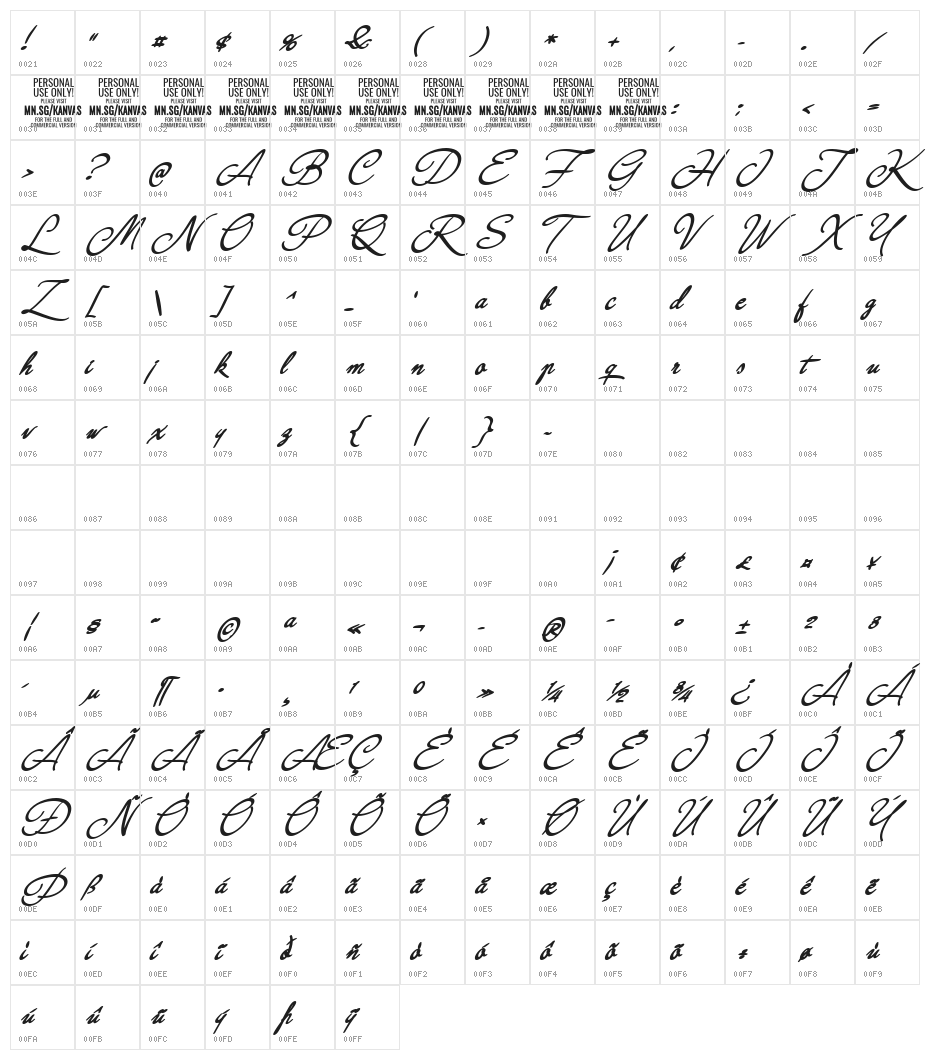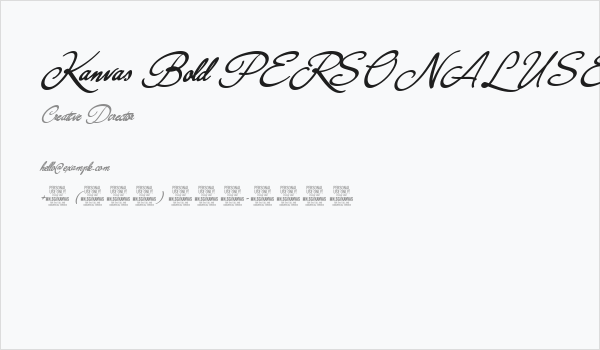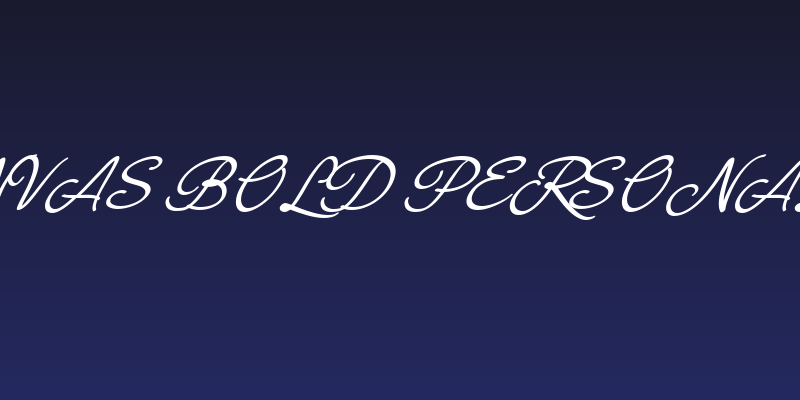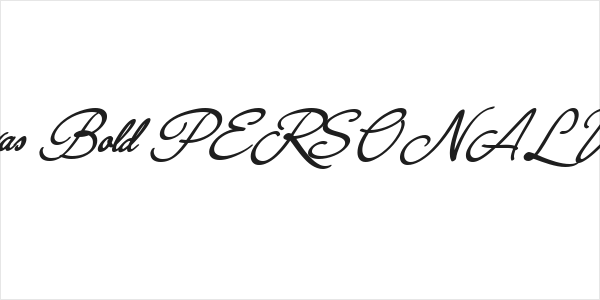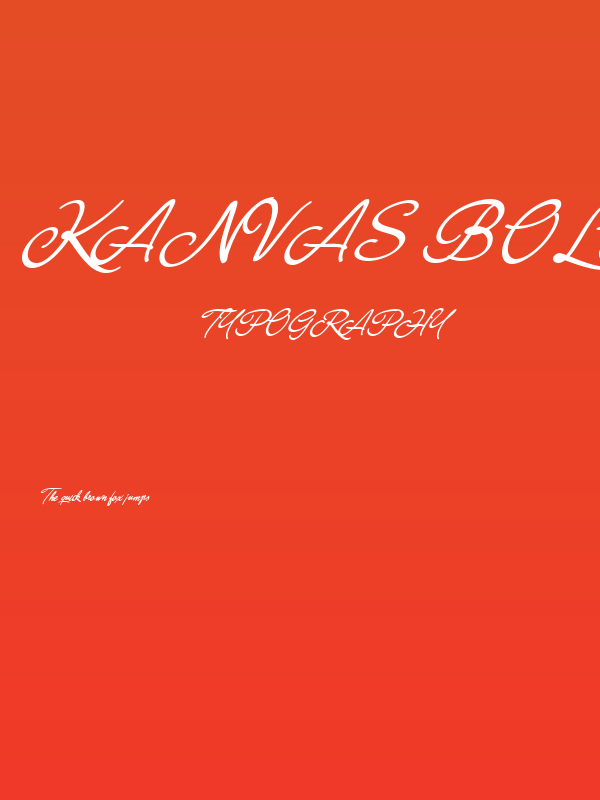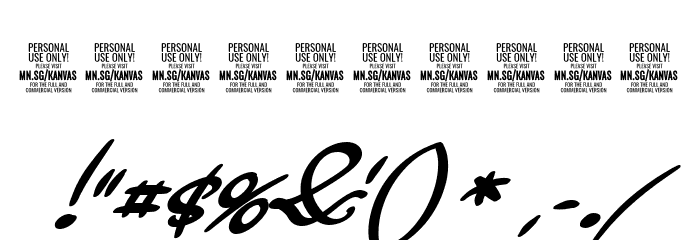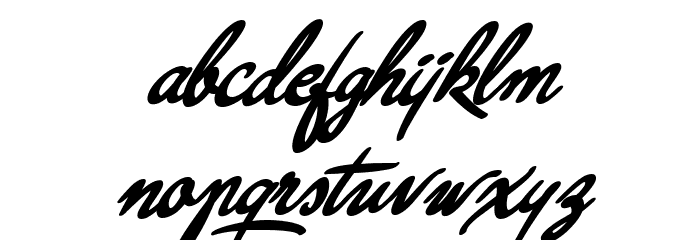
Kanvas Bold PERSONAL USE Font
Kanvas Bold PERSONAL USE Description
This font features a bold, expressive script style with a dynamic flow and elegant curves. The uppercase letters are particularly ornate, with sweeping lines and intricate loops that give a sense of movement and flair. The lowercase letters maintain a cohesive look, with a slightly more compact design that complements the uppercase characters. The numbers and special characters are crafted with the same attention to detail, ensuring consistency across all elements. This font's boldness and unique style make it stand out, perfect for projects that require a touch of sophistication and creativity.